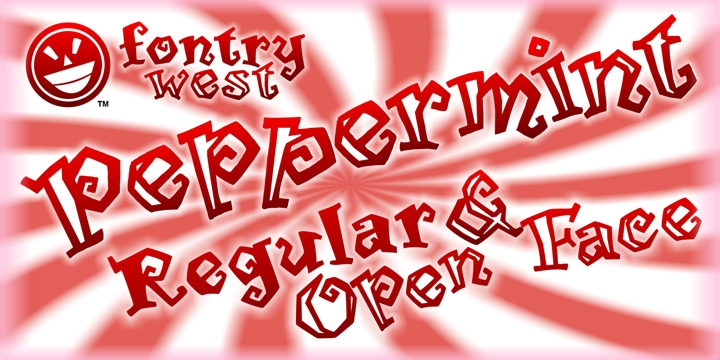
WILD2 Peppermint is a display, hand display and kids font family. This typeface has two styles and was published by Fontry West.
Some one once said that candy is dandy, but liquor is quicker. I’m not certain what they meant, but they obviously hadn’t seen Peppermint. Like most of the Wild Two fonts, Peppermint was drawn out of the needs of a t-shirt designer to keep his clients happy.
Wild hordes of fun seekers have been thrilled by this font’s twisted turns. It is wild and fun, and sweet like candy – or a candy shop logo. It was designed for sororities and cheer squads. Peppermint shouts, giggles, turns, and bounces. But, it still gets the message across loud. Not just for girlish high jinx, it goes great with salsa and chips. Is your taste for something creepy? Peppermint Open Face can deliver a chilling, very Burtonesque Halloween message. Break it up - bounce the characters off the baseline. Twist them. Turn them.
Whatever, but have fun.